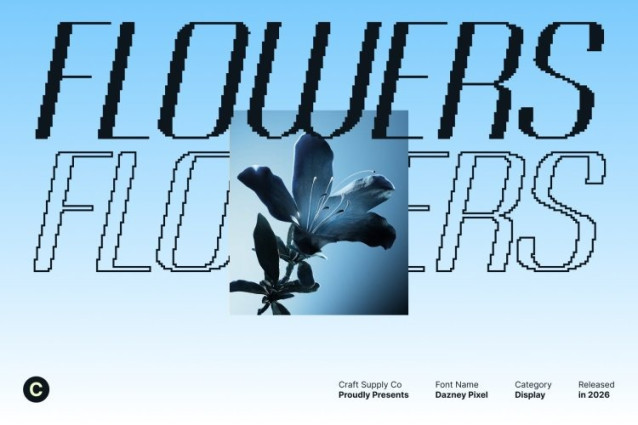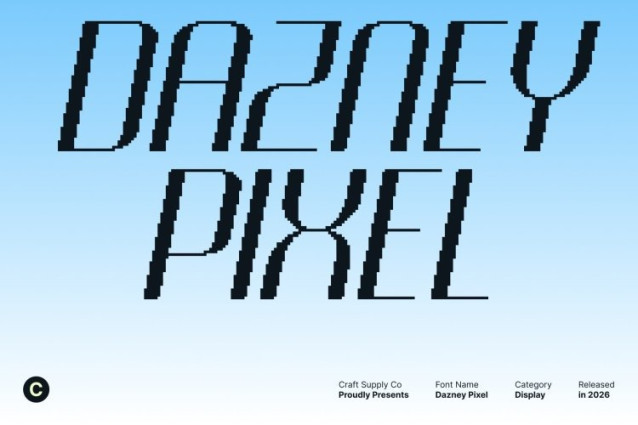
Dazney Pixel Font
Dazney Pixel Font This is a modern sans serif display font defined by high contrast letterforms and contemporary geometry, enhanced with a subtle pixel character. This combination creates a sharp, striking appearance that feels bold, modern, and digitally driven.
Sleek Form with Modern Digital Edge
Featuring clean lines and confident proportions, this font delivers sophistication and clarity. The pixel influence adds a refined digital texture, reinforcing its modern identity while maintaining balance, legibility, and visual impact.
Designed for Powerful Display Use
This font excels in display-focused applications where attention is essential. From headlines and posters to digital campaigns and editorial titles, its high-contrast structure and pixel styling ensure strong presence and clear communication.
Versatile, Modern, and Impactful
Seamlessly fitting into modern design workflows, this font offers flexibility across digital and print media. With its blend of contemporary form, pixel precision, and high legibility, this font is a reliable choice for designers seeking modern flair with lasting visual appeal.